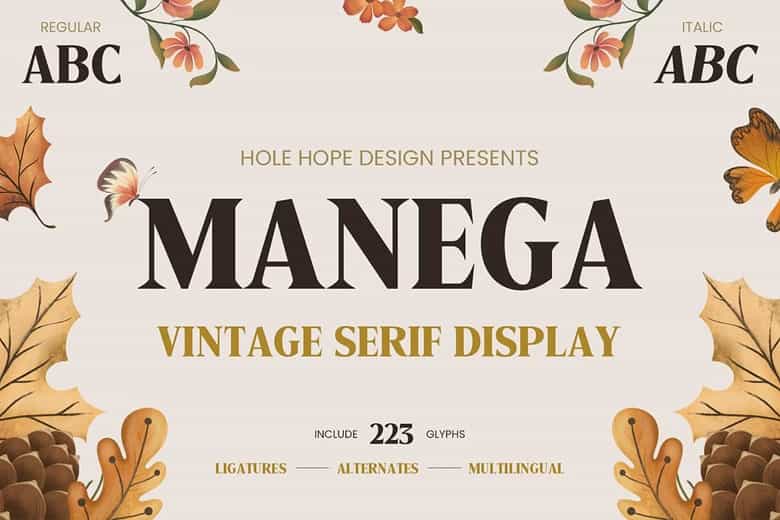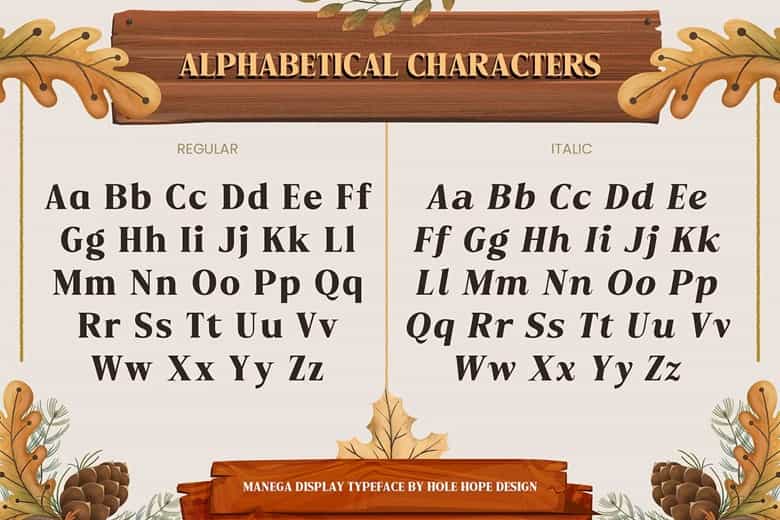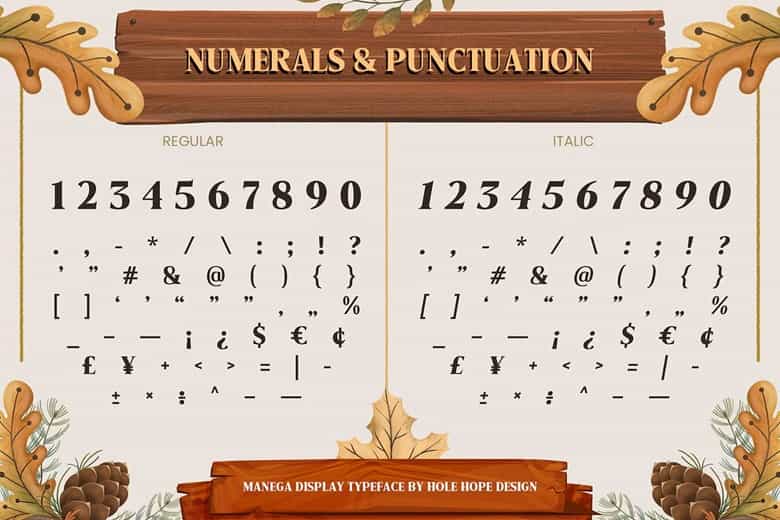
Manega is a display serif font that is timeless and elegant and reminiscent of traditional fonts and is ideal for use in any Thanksgiving design. The font is a stylish serif font packaged with elements of the past and a contemporary feel for invitations, menus, and festive accents.